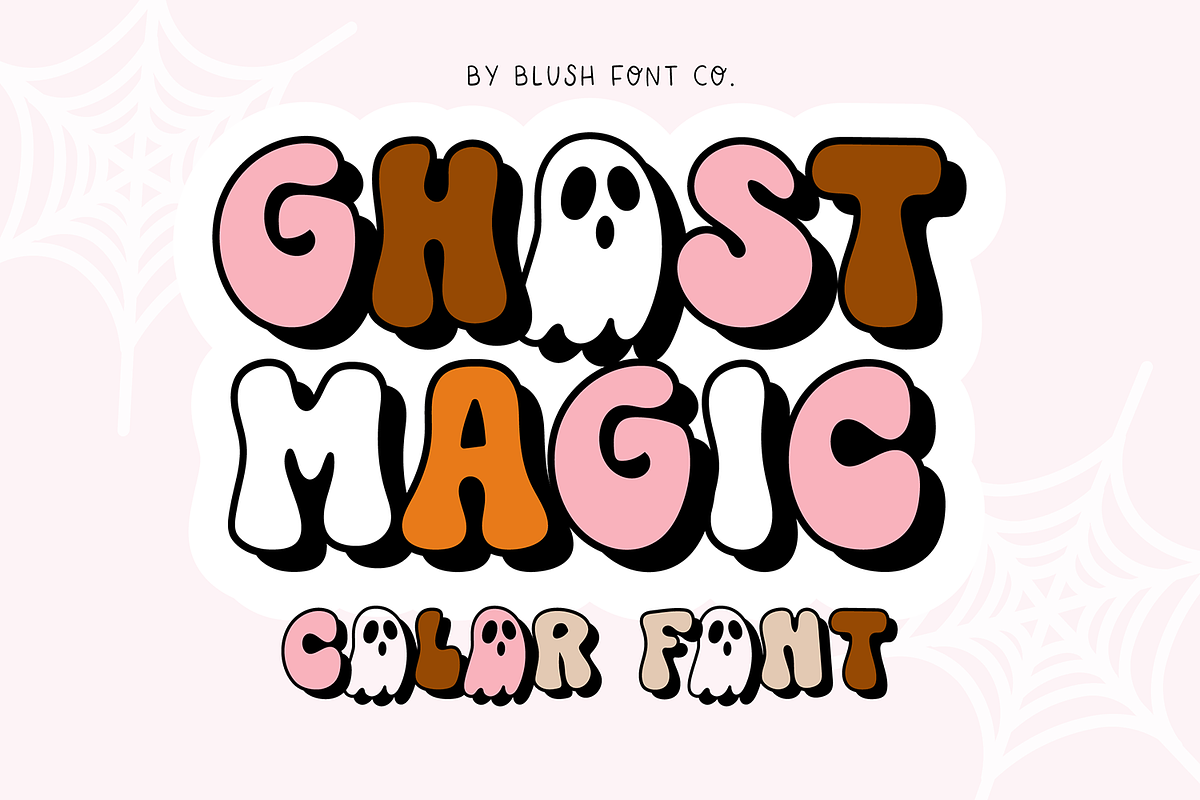
Ghost Magic Font Free Download is a playful Halloween-themed color font bursting with spooky charm and whimsical energy. Designed with bold lettering, creepy-cute details, and vibrant tones, it’s perfect for Halloween party invites, trick-or-treat bags, haunted house flyers, seasonal merchandise, and kid-friendly spooky designs.
This font captures the magical side of Halloween — fun, festive, and just a little bit eerie. Whether you’re creating boo-tiful graphics for social media or adding ghostly flair to crafts and packaging, Ghost Magic makes it hauntingly fun. Ghost Magic Font Free Download lets you test its colorful personality in personal projects before grabbing a commercial license.
Make your Halloween designs spellbinding with Ghost Magic — the color font that brings fright and fun together in perfect harmony.